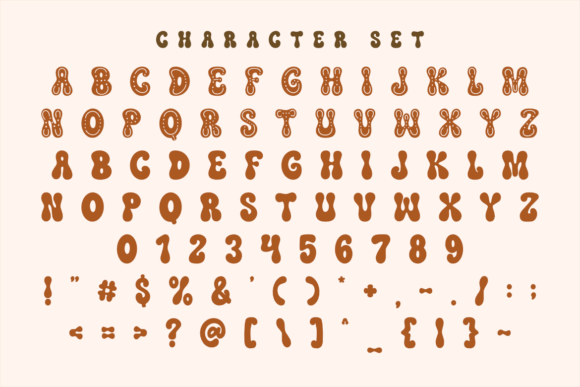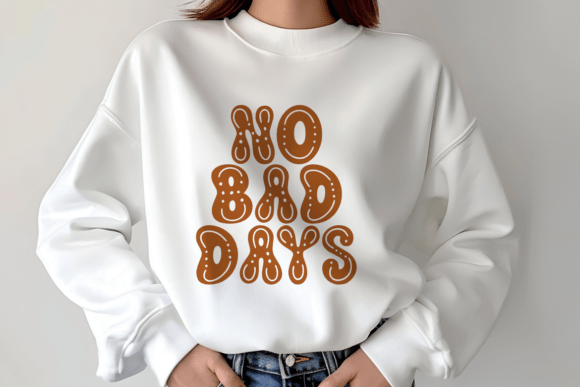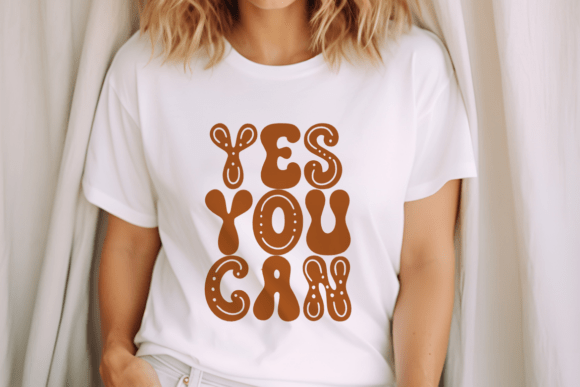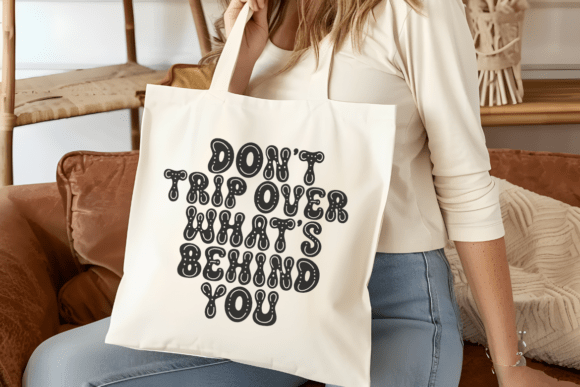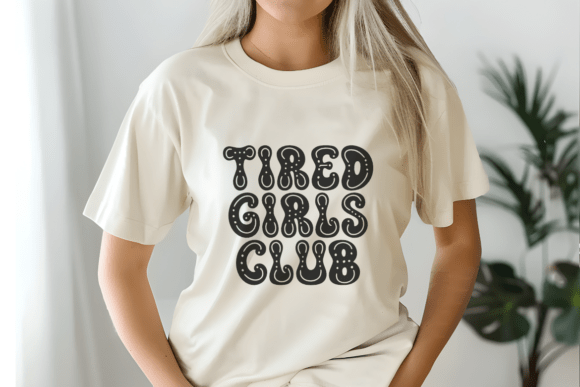
Ginger Bread Font: Add a Vintage Flair to Your Designs
Are you looking for a font that can add a fun, nostalgic vibe to your creative projects? Look no further than the Ginger Bread font! This cute, groovy font is perfect for designers and crafters who want to bring a touch of vintage charm to their work. In this article, we’ll take a closer look at the Ginger Bread font, its features, and how it can be used to elevate your designs.
What is Ginger Bread Font?
Ginger Bread is a unique font that boasts thick strokes and playful curves, making it perfect for adding a vintage flair to any design. Its distinctive style is reminiscent of classic, nostalgic designs, making it ideal for projects that require a retro touch. Whether you’re working on a logo, greeting card, or merchandise, the Ginger Bread font is sure to make your design stand out.
Features of Ginger Bread Font
The Ginger Bread font comes with several features that make it a versatile and practical choice for designers and crafters. Some of its key features include:
Use Cases for Ginger Bread Font
The Ginger Bread font is perfect for a wide range of design projects, including:
- Crafting: Add a vintage touch to your crafting projects, such as DIY signs, cards, and decorations.
- Sublimation: Use the Ginger Bread font to create unique and eye-catching sublimation designs for products like mugs, t-shirts, and phone cases.
- Print on Demand: Create stunning print-on-demand products, such as t-shirts, mugs, and tote bags, using the Ginger Bread font.
- Decals: Add a touch of nostalgia to your decals, stickers, and labels with the Ginger Bread font.
- DIY: Use the font to create unique and personalized DIY projects, such as signs, banners, and decorations.
- Branding: Add a vintage touch to your brand identity with the Ginger Bread font, perfect for logos, business cards, and letterheads.
- KDP Interior: Use the font to create visually appealing interiors for Kindle Direct Publishing (KDP) books, including journals, planners, and notebooks.
Design Ideas with Ginger Bread Font
The Ginger Bread font is perfect for a wide range of design projects. Here are some ideas to get you started:
- Planner designs: Create stunning planner designs with the Ginger Bread font, perfect for bullet journaling, daily planning, and organization.
- Logos: Use the font to create unique and memorable logos for your business or brand.
- Greeting cards: Add a touch of nostalgia to your greeting cards, invitations, and party decorations with the Ginger Bread font.
- Merchandise: Create eye-catching merchandise, such as t-shirts, mugs, and tote bags, using the Ginger Bread font.
- Product promotions: Use the font to create visually appealing product promotions, including social media graphics, flyers, and brochures.
In conclusion, the Ginger Bread font is a versatile and practical choice for designers and crafters who want to add a vintage flair to their designs. With its thick strokes, playful curves, and range of features, this font is perfect for a wide range of design projects, from crafting and sublimation to branding and KDP interior. So why not give the Ginger Bread font a try and see how it can elevate your designs?